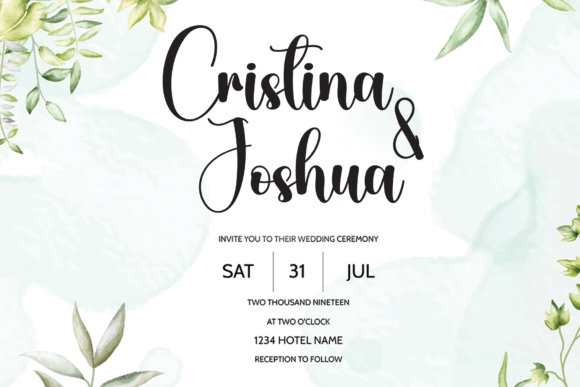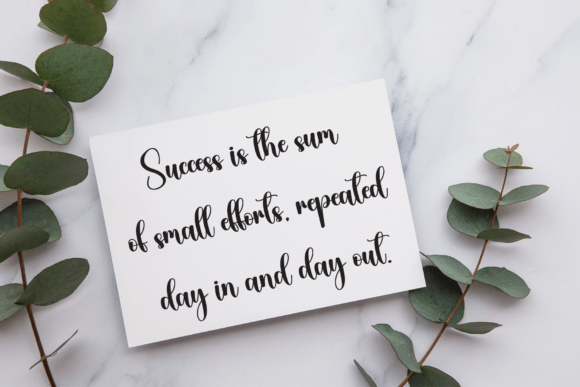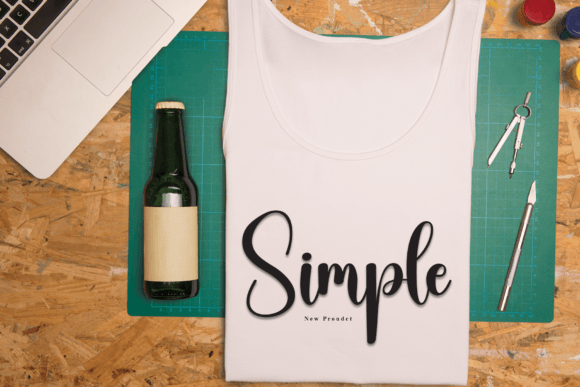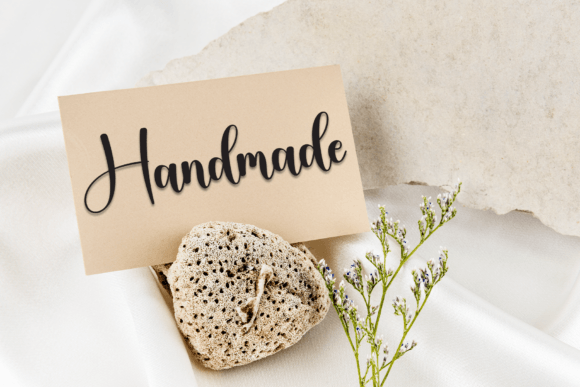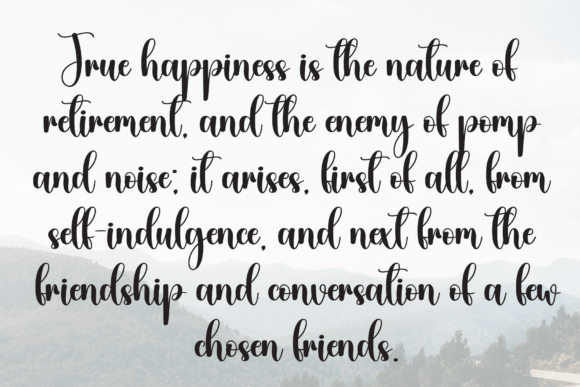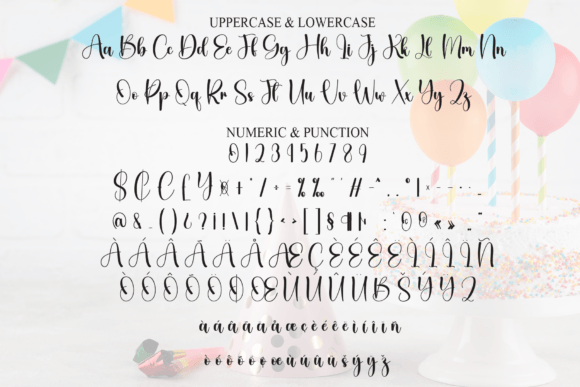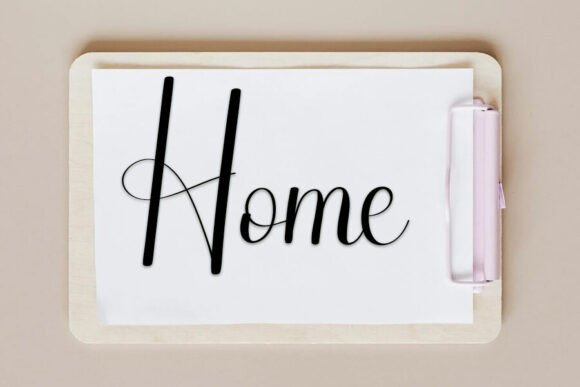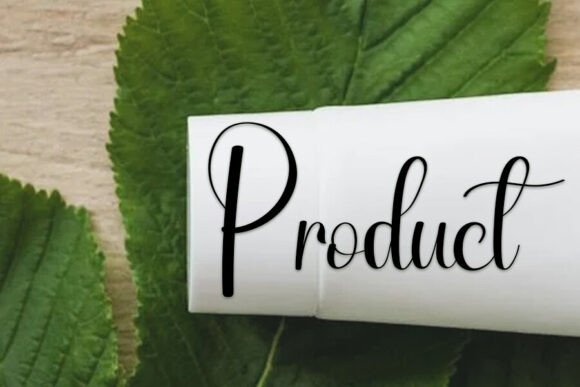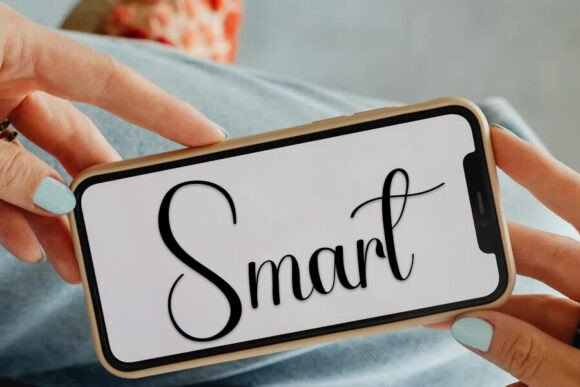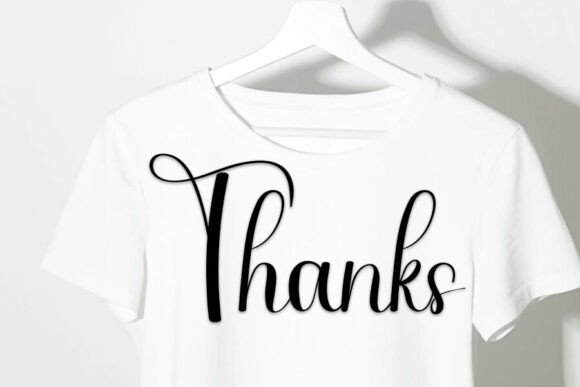
Introducing the ‘Birthday’ Font: Elevate Your Designs with Freshness and Beauty
Are you tired of using the same old fonts in your designs? Look no further! Dive into the creative world with the ‘Birthday’ font, a state-of-the-art design that breathes freshness and beauty into your projects. This stunning font is perfectly suited for a wide range of applications, from YouTube banners and logo mockups to wedding invitations, ID cards, flyers, and craftworks.
Unleash Your Creativity with ‘Birthday’ Font
The ‘Birthday’ font is more than just a design element – it’s an experience. With its unique blend of simplicity and sophistication, this font is designed to foster growth and elevate your business to new heights. Every curve and line within the font is carefully crafted to inject a touch of elegance, making your design stand out from the crowd.
Endless Possibilities with ‘Birthday’ Font
One of the most exciting things about the ‘Birthday’ font is its versatility. Whether you’re a designer, crafter, or entrepreneur, this font can be used in a wide range of projects, including:
• YouTube banners: Make a statement with your channel’s branding and grab the attention of your audience.
• Logo mockups: Create stunning logo designs that showcase your brand’s personality.
• Wedding invitations: Add a touch of elegance and sophistication to your wedding stationery.
• ID cards: Create professional and stylish ID cards that make a lasting impression.
• Flyers and craftworks: Add a pop of personality to your marketing materials and craft projects.
The Secret to ‘Birthday’ Font’s Success
So, what sets the ‘Birthday’ font apart from other designs? The answer lies in its unique combination of simplicity and sophistication. The font’s clean lines and curves create a sense of elegance, while its bold and playful style injects a touch of fun and personality.
Why Choose ‘Birthday’ Font?
There are many reasons why the ‘Birthday’ font is the perfect choice for your next project. Here are just a few:
• Attention-grabbing: The ‘Birthday’ font is designed to draw attention and leave a memorable impression.
• Versatile: Use the font in a wide range of projects, from digital designs to print materials.
• Elegant: The font’s sophisticated style adds a touch of elegance to any design.
Tips for Using ‘Birthday’ Font
To get the most out of the ‘Birthday’ font, here are a few tips to keep in mind:
• Experiment with different colors: The ‘Birthday’ font looks great in a wide range of colors, so don’t be afraid to experiment and find the perfect hue for your design.
• Play with font sizes: The font’s bold style makes it perfect for headlines, while its elegant curves work beautifully in smaller text.
• Combine with other fonts: The ‘Birthday’ font pairs well with a wide range of other fonts, so feel free to get creative and experiment with different combinations.
In conclusion, the ‘Birthday’ font is a game-changer for designers and crafters. With its unique blend of simplicity and sophistication, this font is perfect for a wide range of projects. Whether you’re looking to create a stunning logo, a beautiful wedding invitation, or a professional ID card, the ‘Birthday’ font is the perfect choice. So why wait? Dive into the creative world with the ‘Birthday’ font and elevate your designs to new heights.
Introducing Birthday Font: The Ultimate Choice for Elegant and Playful Designs
Are you looking for a font that can add a personal touch to your designs? Look no further than Birthday Font, a stylish handwritten script font that is perfect for creating logos, invitations, greeting cards, and more. With its smooth, flowing lines, Birthday Font exudes elegance and playfulness, making it an ideal choice for designers and crafters who want to create unique and eye-catching designs.
The Characteristics of Birthday Font
Birthday Font is a handwritten script font that boasts smooth, flowing lines that give it a natural and creative feel. Its elegant and playful style makes it perfect for a wide range of design projects, from logos and invitations to greeting cards and more. The font’s unique characteristics include:
• Smooth, flowing lines that give it a natural and creative feel
• Elegant and playful style that’s perfect for a wide range of design projects
• Perfect for creating logos, invitations, greeting cards, and more
• Adds a personal touch to your designs
Why Choose Birthday Font?
So, why choose Birthday Font over other fonts? Here are just a few reasons why Birthday Font is the ultimate choice for designers and crafters:
• Unique and Eye-Catching Designs: Birthday Font’s natural and creative style makes your designs stand out from the crowd. Its elegant and playful lines add a personal touch to your designs, making them more engaging and memorable.
• Versatility: Birthday Font is perfect for a wide range of design projects, from logos and invitations to greeting cards and more. Its smooth, flowing lines make it easy to read and understand, making it perfect for both digital and print designs.
• Easy to Use: Birthday Font is easy to use and can be installed on your computer in just a few minutes. Once installed, you can use it in your favorite design software, such as Adobe Illustrator or Canva.
How to Use Birthday Font
Using Birthday Font is easy. Here’s a step-by-step guide to get you started:
1. Download and install Birthday Font on your computer.
2. Open your favorite design software, such as Adobe Illustrator or Canva.
3. Select Birthday Font from your font library.
4. Start designing! Use Birthday Font to create logos, invitations, greeting cards, and more.
Tips and Tricks for Using Birthday Font
Here are a few tips and tricks to help you get the most out of Birthday Font:
• Experiment with Different Sizes and Colors: Birthday Font looks great in a variety of sizes and colors. Experiment with different combinations to find the one that works best for your design.
• Use it for Headings and Titles: Birthday Font is perfect for headings and titles. Its elegant and playful lines make it easy to read and understand, making it perfect for creating eye-catching headings and titles.
• Pair it with Other Fonts: Birthday Font pairs well with other fonts. Try pairing it with a sans-serif font for a modern look or a serif font for a more traditional look.
Font Name Birthday Font
In conclusion, Birthday Font is a stylish handwritten script font that is perfect for designers and crafters who want to create unique and eye-catching designs. Its smooth, flowing lines give it a natural and creative feel, making it perfect for a wide range of design projects. With its elegance and playfulness, Birthday Font is sure to add a personal touch to your designs. So why wait? Download Birthday Font today and start creating stunning designs that will leave a lasting impression!
Whether you’re a professional designer or a crafter, Birthday Font is the perfect choice for anyone who wants to create beautiful and unique designs. Its versatility, ease of use, and unique characteristics make it an ideal choice for a wide range of design projects. So go ahead, get creative, and see what amazing designs you can create with Birthday Font!